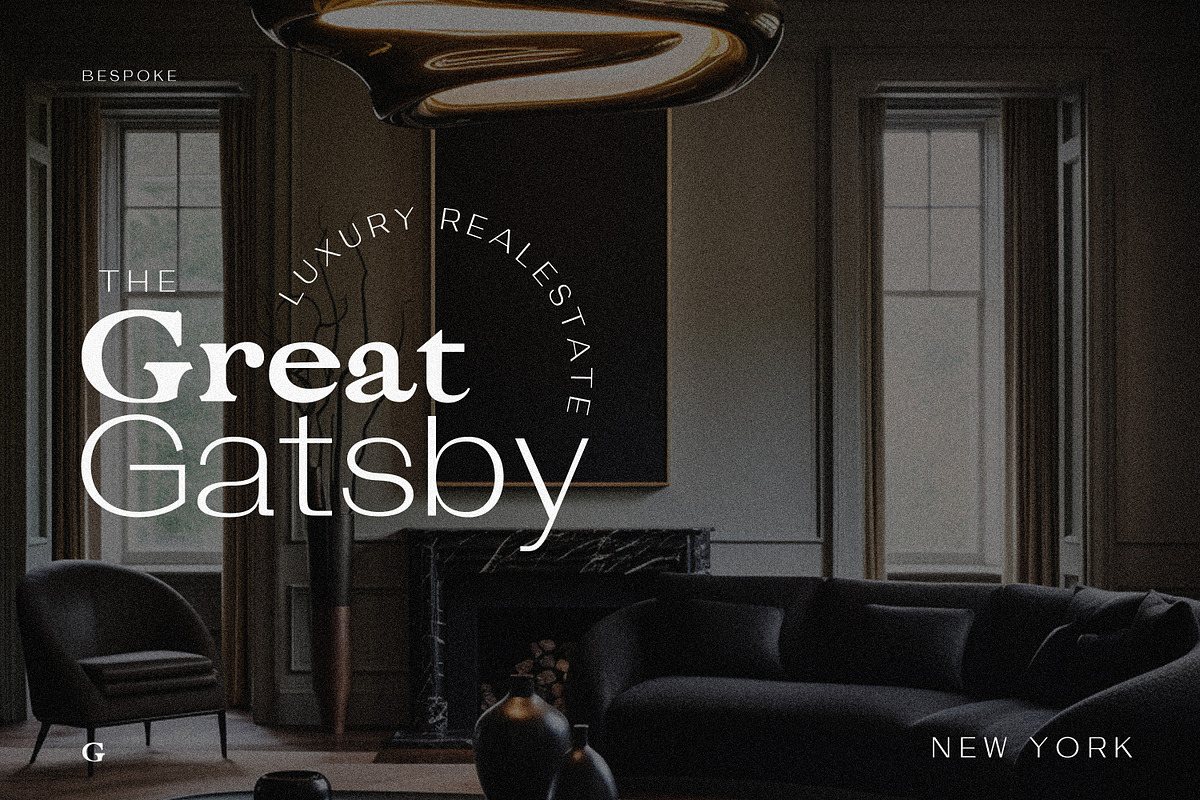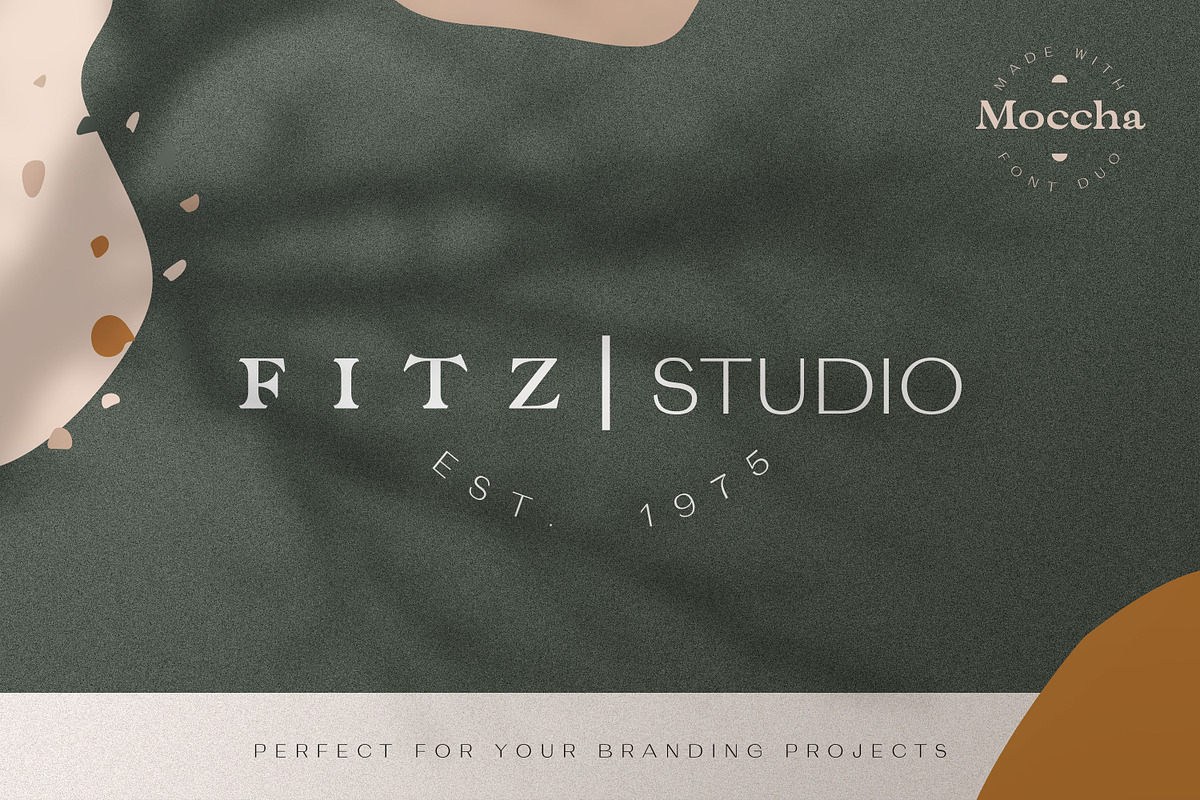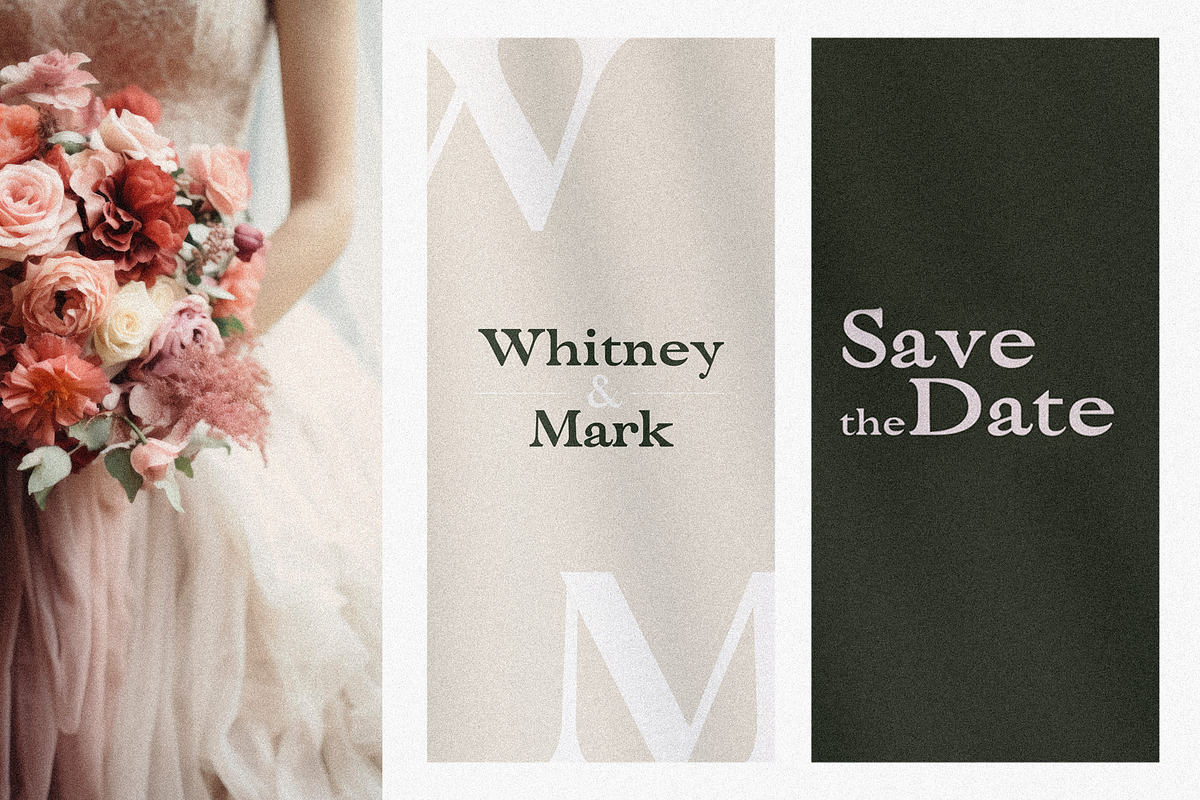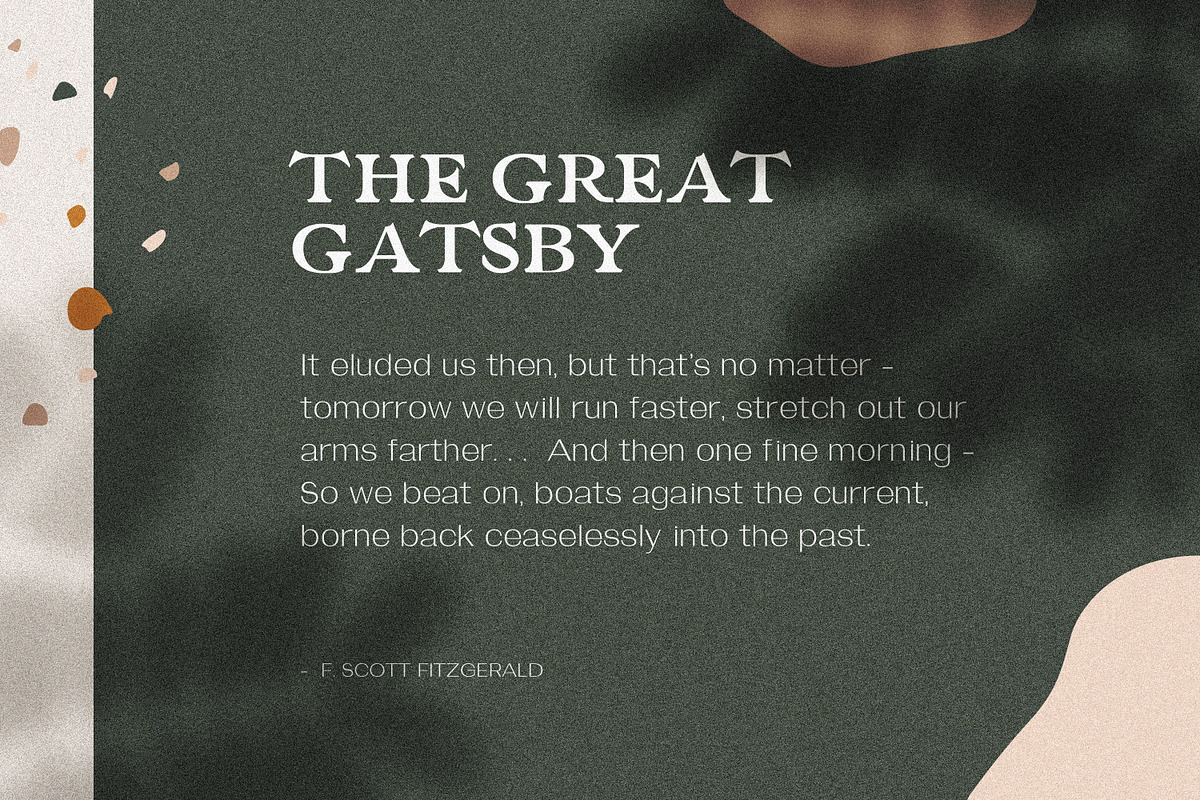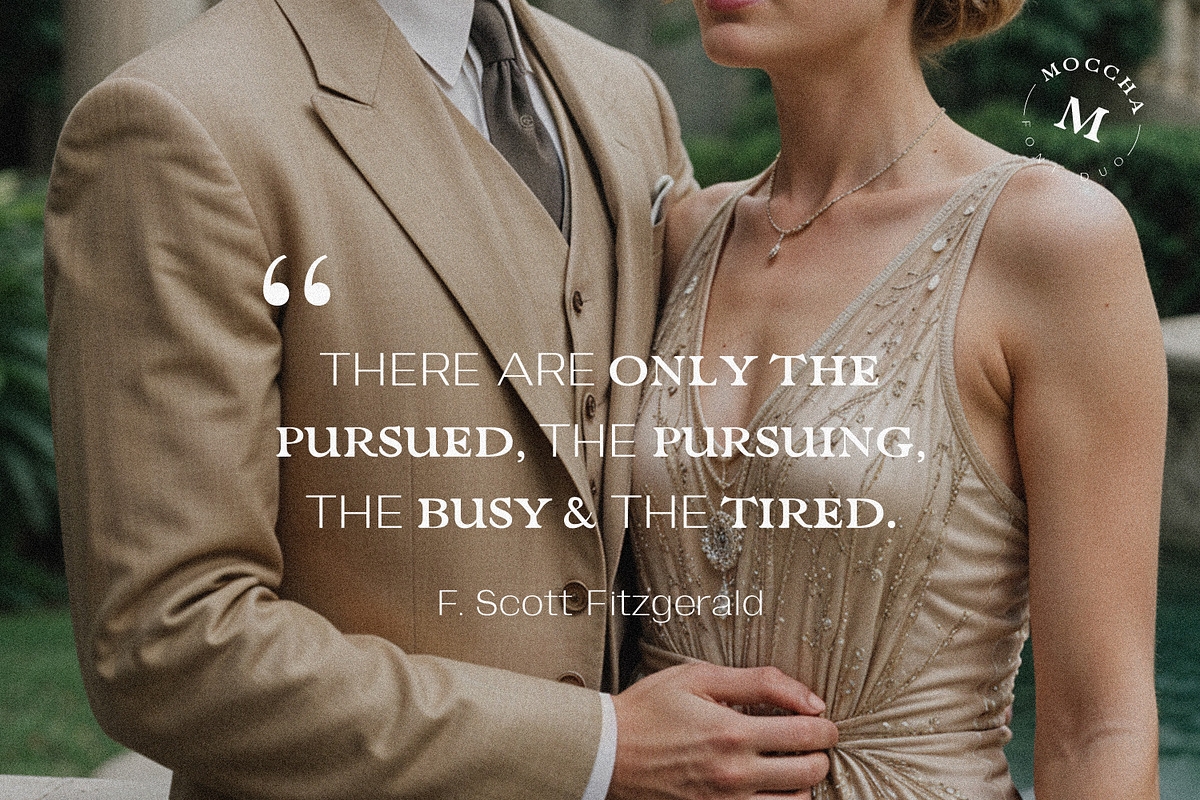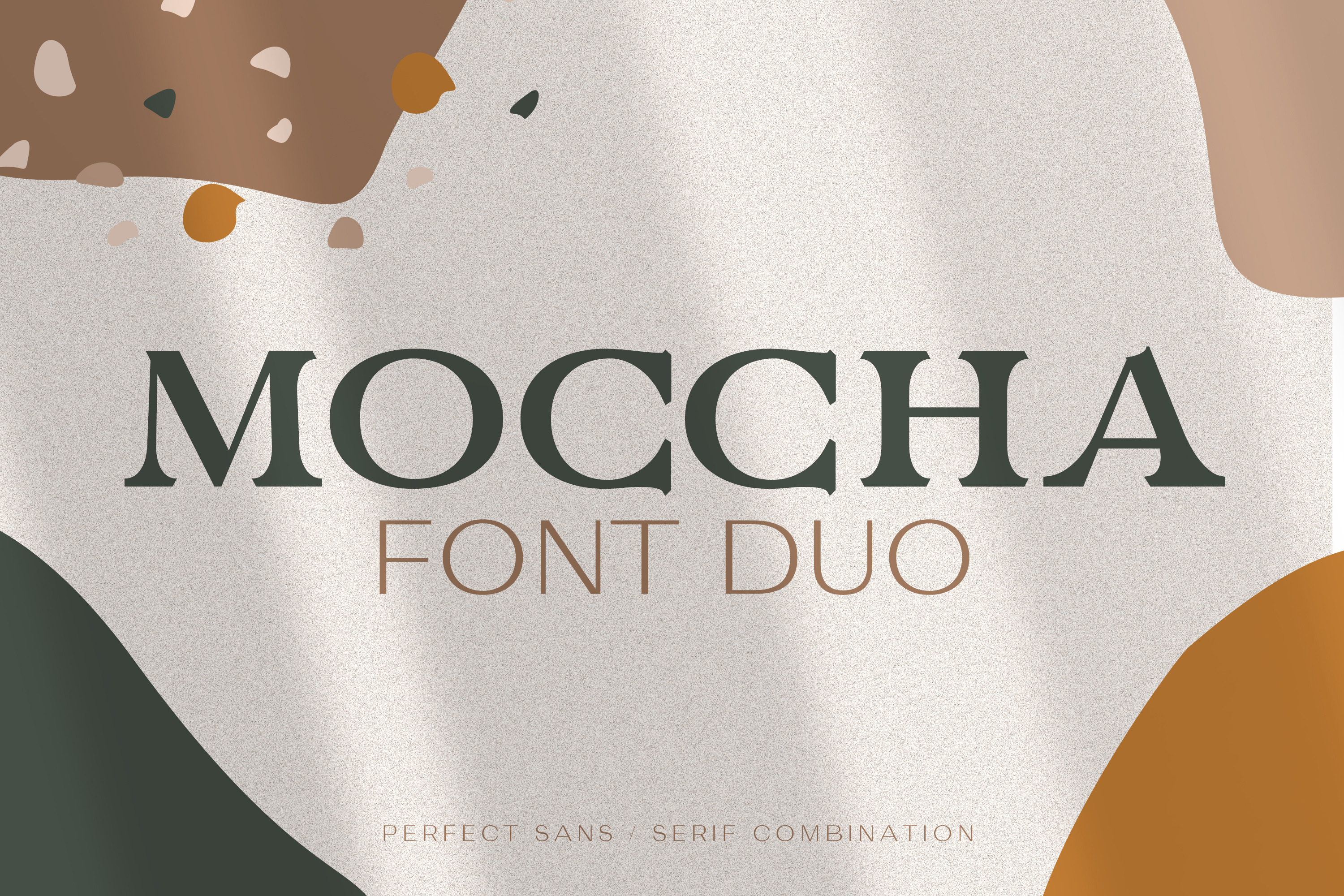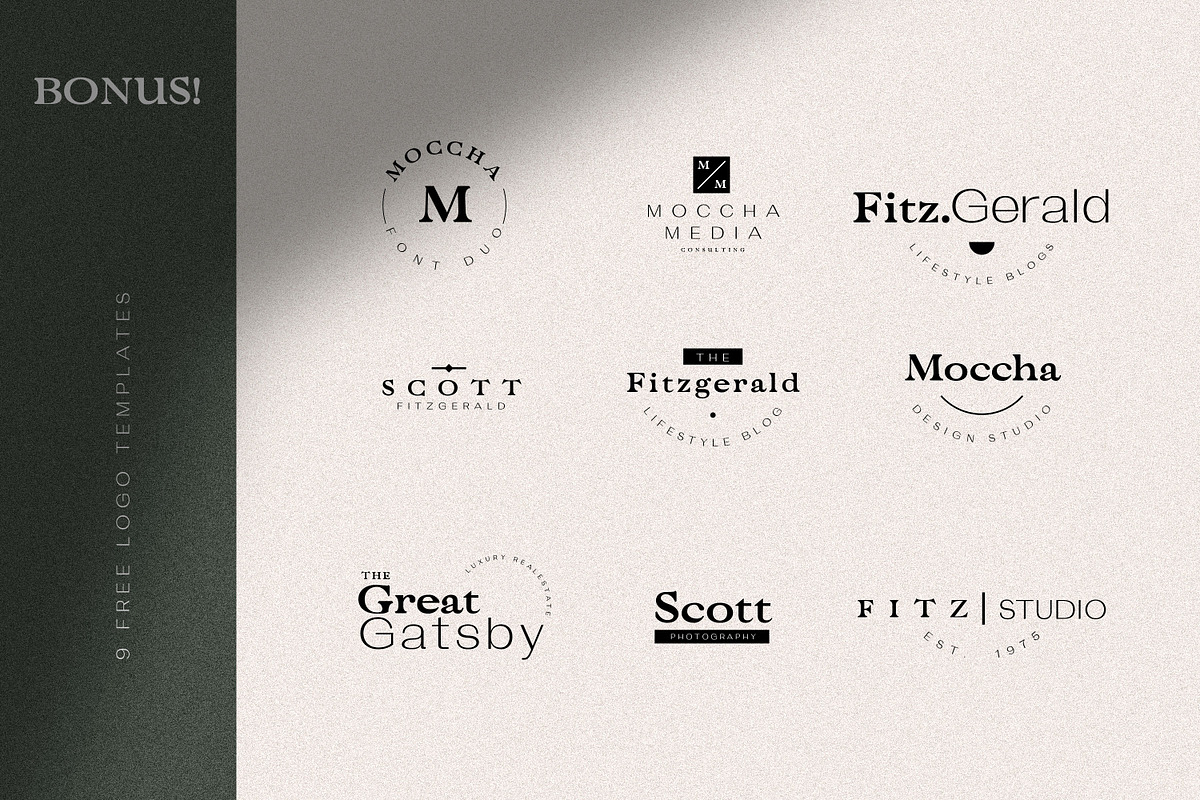
Moccha Bespoke Font Duo
Introducing Moccha - an elegant luxury font duo of modern sans-serif and classic serif typefaces.
The font combination helps you create elegant designs and it works in large display titles, logos and small paragraphs. You can combine them in endless ways and create unique lockups. The font duo is perfect for all kinds of branding work and elegant invitation designs.